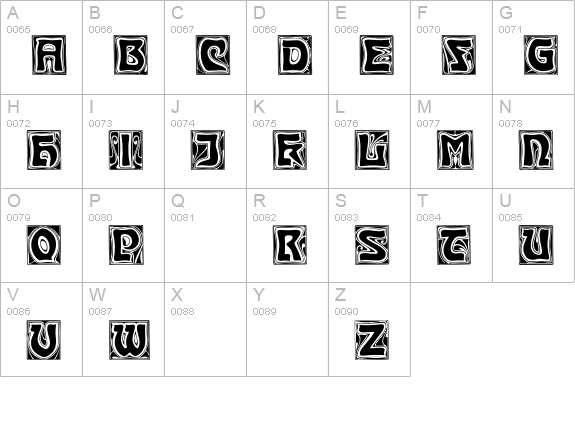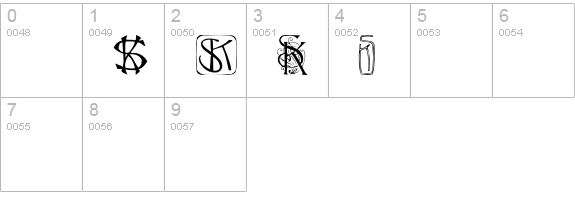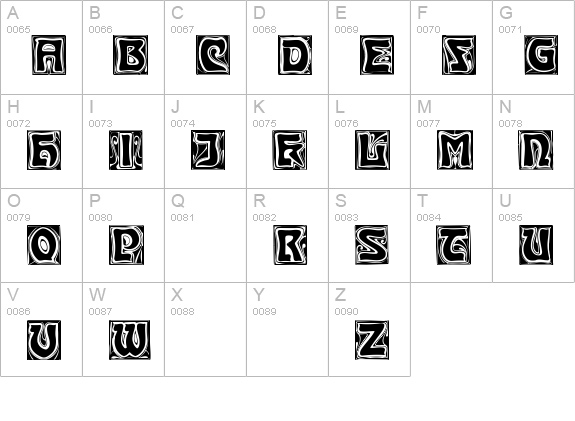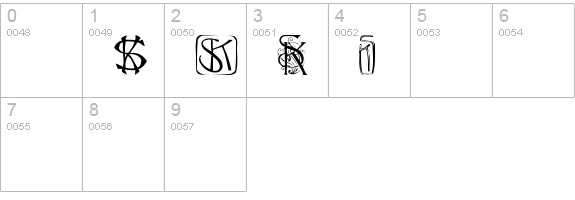
KinigsteinKaps Font Details
KinigsteinKaps is a captivating and meticulously crafted font that brings a touch of vintage elegance to any design project. With its delicate serifs and intricate details, this font exudes a sense of timeless beauty and sophistication. Each letter of KinigsteinKaps has been thoughtfully designed to seamlessly blend together, creating a harmonious flow of characters that dance across the page. The elegant curves and graceful strokes of this font make it perfect for adding a touch of class to logos, branding materials, invitations, and more. But what truly sets KinigsteinKaps apart is its versatility. Whether you're creating a vintage-inspired poster or a modern website, this font can effortlessly adapt to any style. Its timeless design ensures that it will remain relevant and appealing for years to come. And the best part? KinigsteinKaps is completely free! Yes, you read that right. This stunning font is freely available to download at FontsMarket.com. Now, you can bring a touch of vintage elegance to your designs without breaking the bank. So, why wait? Elevate your design projects with the timeless beauty of KinigsteinKaps. Download this exquisite font today and unlock a world of possibilities for your creative endeavors.